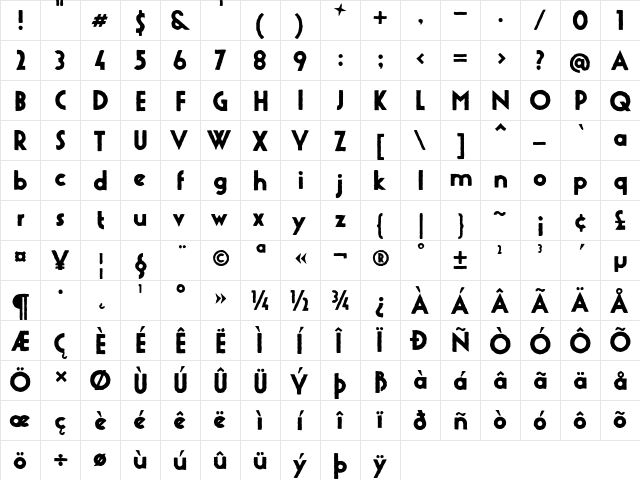
Urban Stone Regular
Design Context for Urban Stone Typeface
Urban Stone offers clean, dependable letterforms without strong stylistic allegiance, making it a practical choice for designers who need flexibility.
Pro Tip: Pair Urban Stone with a font of contrasting weight or personality to build a more expressive typographic hierarchy.